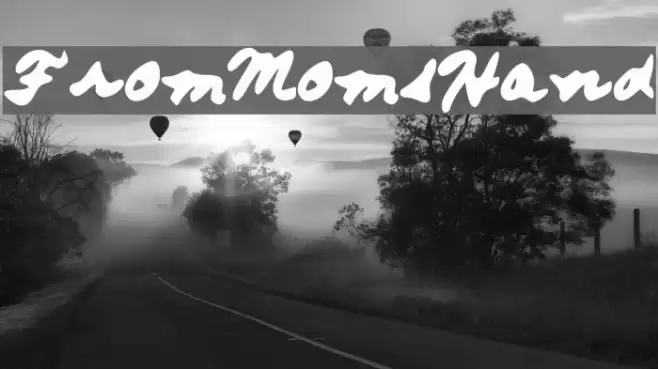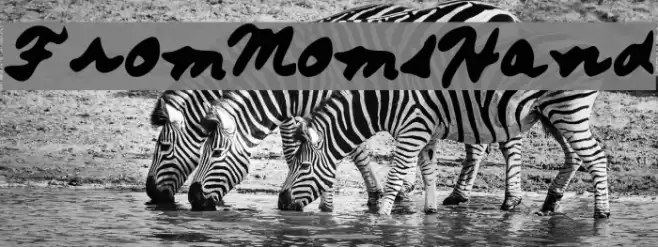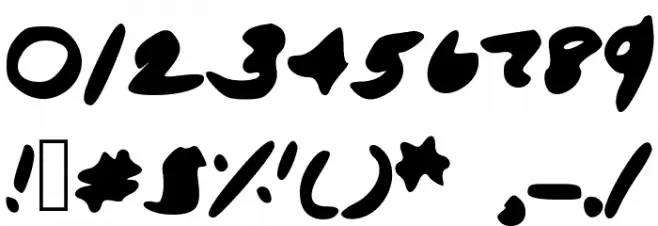
FromMomsHand Font
FromMomsHand Description
This font exudes a playful and energetic vibe, characterized by its bold, flowing script style that mimics the fluidity of handwriting. The letters are interconnected, creating a seamless and dynamic appearance. The strokes are thick and consistent, providing a strong visual impact. The font maintains a casual yet artistic flair, making it ideal for projects that require a personal touch. Its unique style is both approachable and expressive, capturing the essence of handwritten notes with a modern twist.
A bold, flowing script font with a playful, handwritten style from Handwritten fonts.
- Proposed Projects: Ideal for greeting cards, invitations, personal branding, and creative posters.
- Character Spacing: Tight
- Use Case: Logos, Headlines, Creative projects